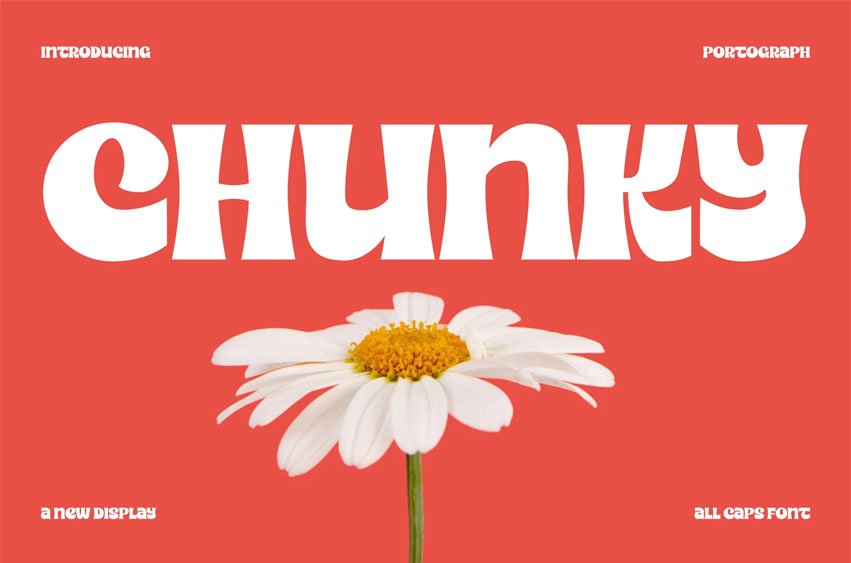
Chunky Font is a bold and expressive display font with chunky proportions and experimental letterforms. Designed to stand out, this font combines retro inspired shapes with a modern aesthetic, creating a strong and distinctive visual identity.
Its heavy strokes, unique curves, and playful irregularity. The font performs exceptionally well at large sizes, where its character and personality truly shine. Chunky is ideal for designers looking to add impact, originality, and a contemporary artistic touch to their typography projects.